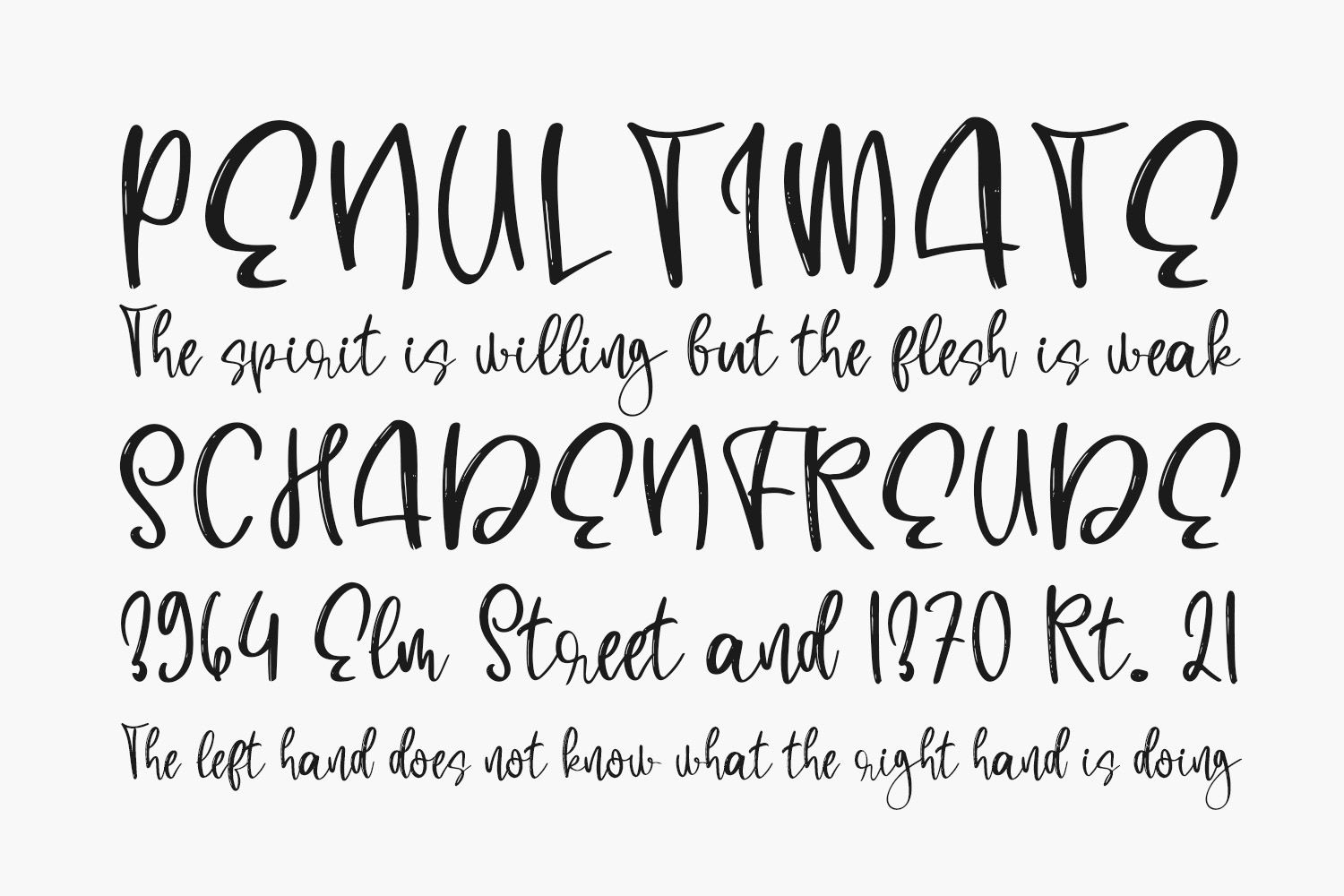
Blue Jeans Free Font is a daring handwritten font that beautifully combines elegance with playfulness. With its rounded and chunkier than usual letters, this font will take your creation to the next level. Blue Jeans Free Font was designed by Creative Zone and is free for personal use only. Please purchase the full version for commercial use.